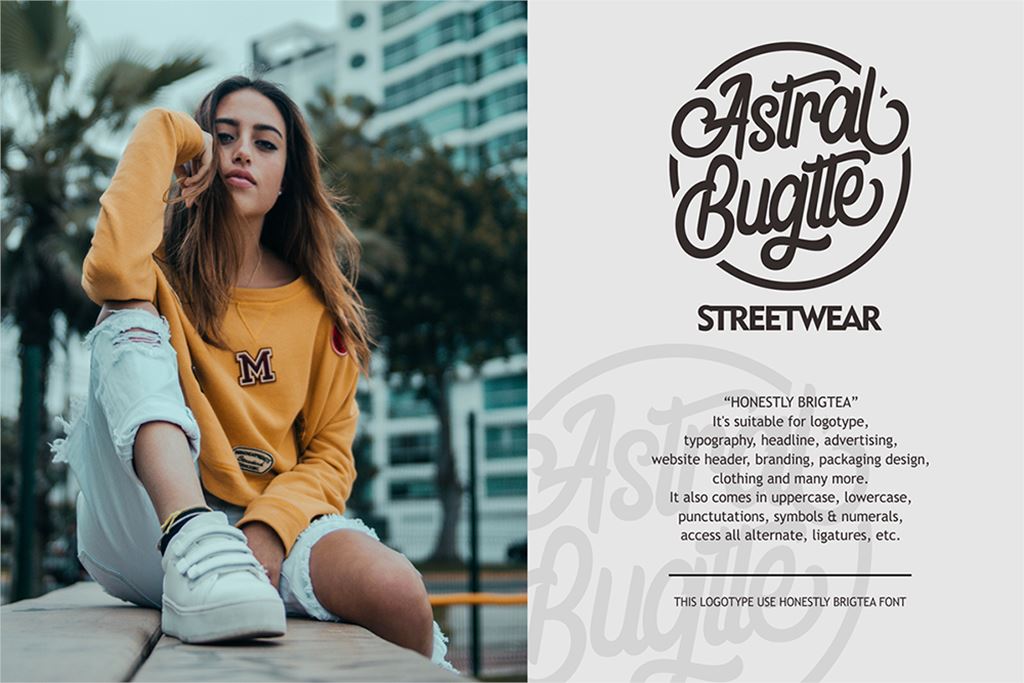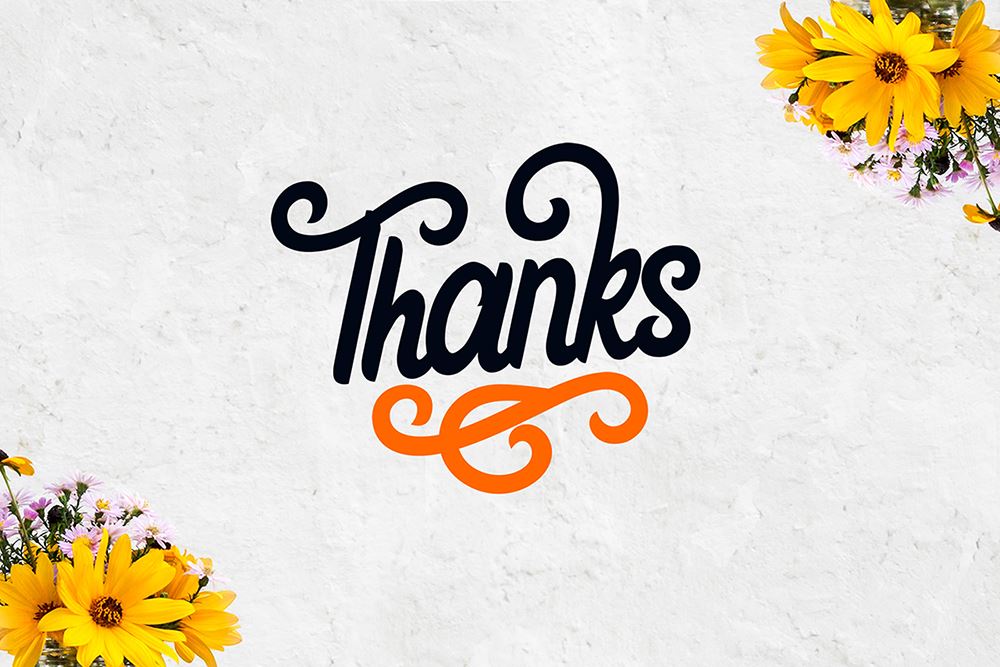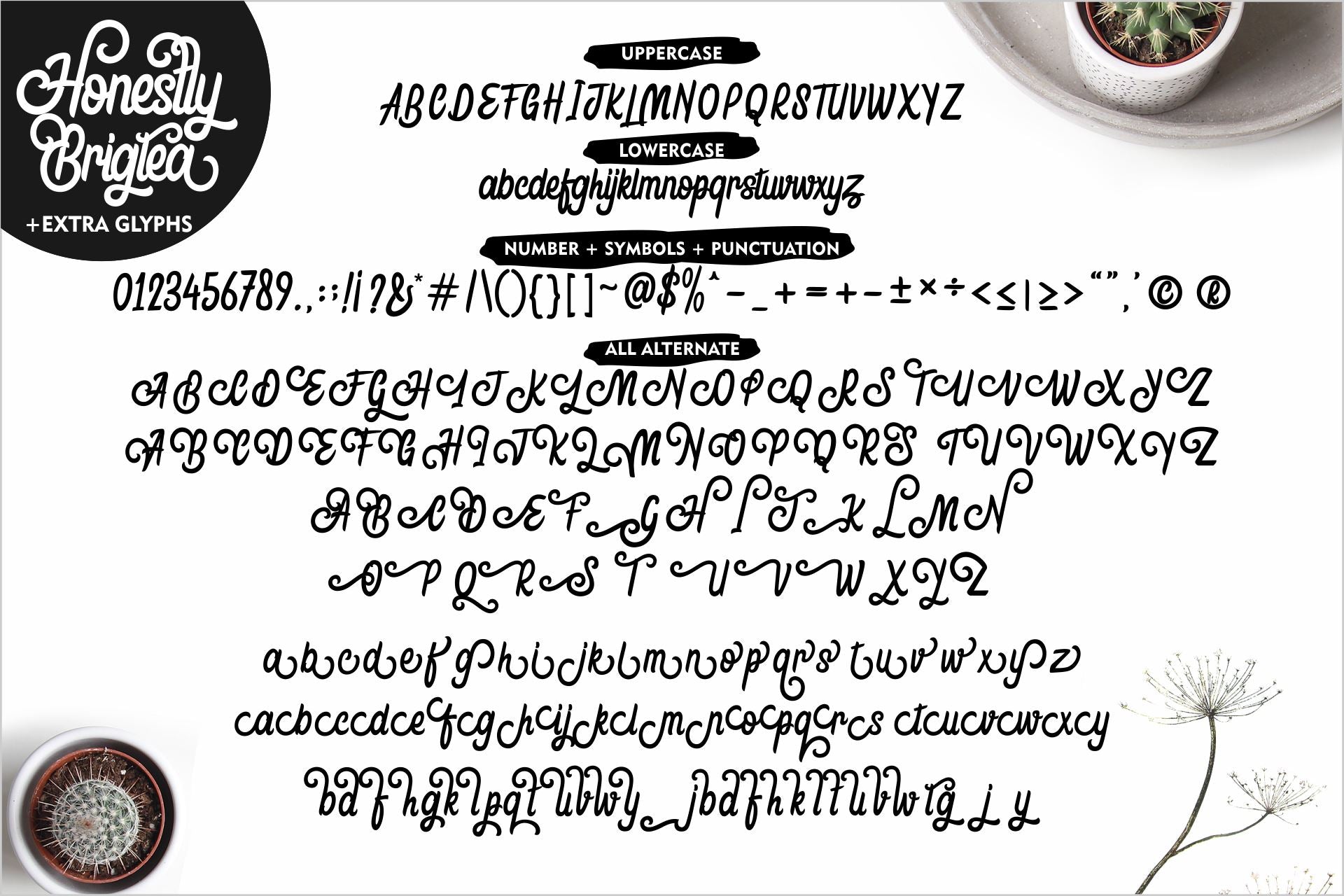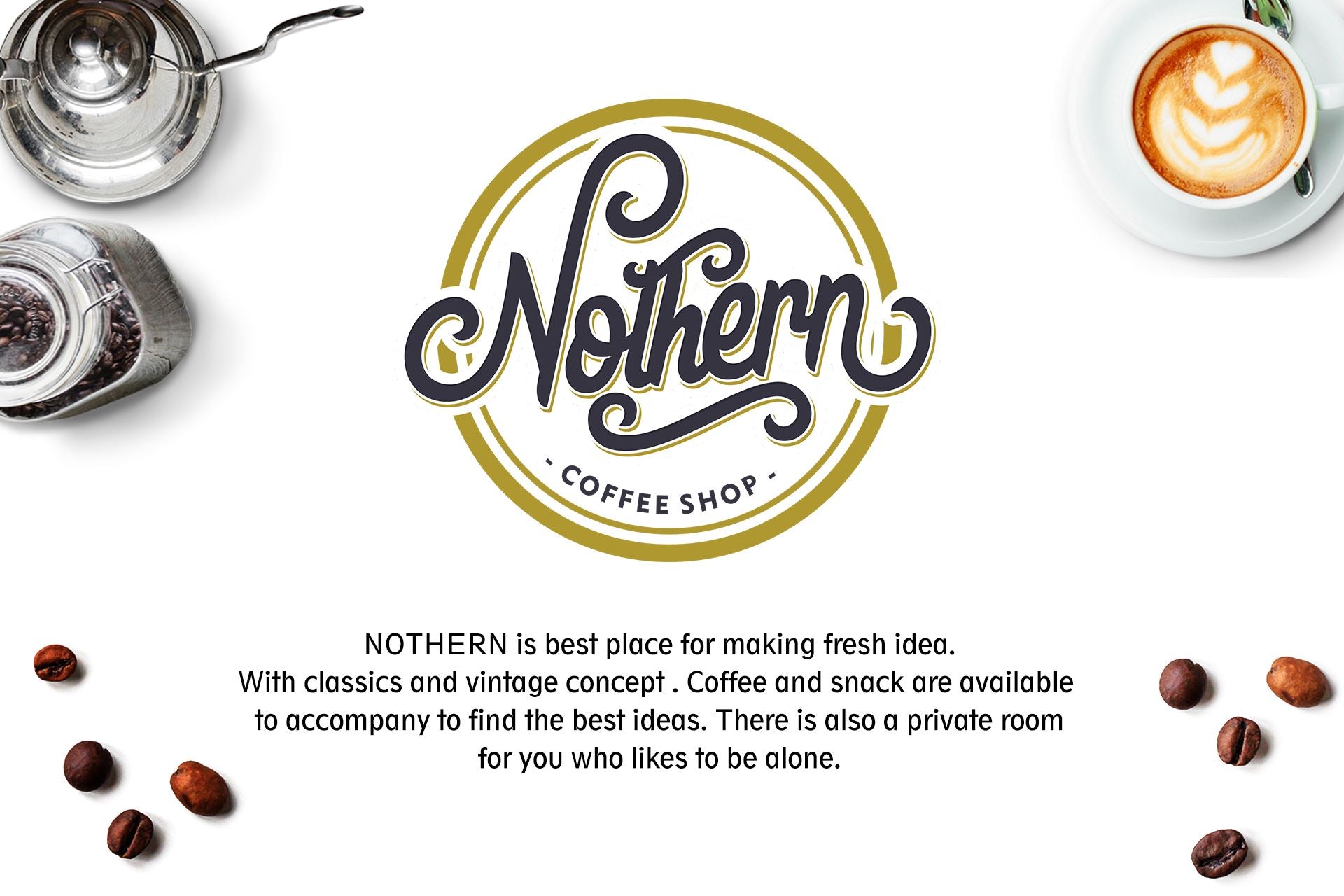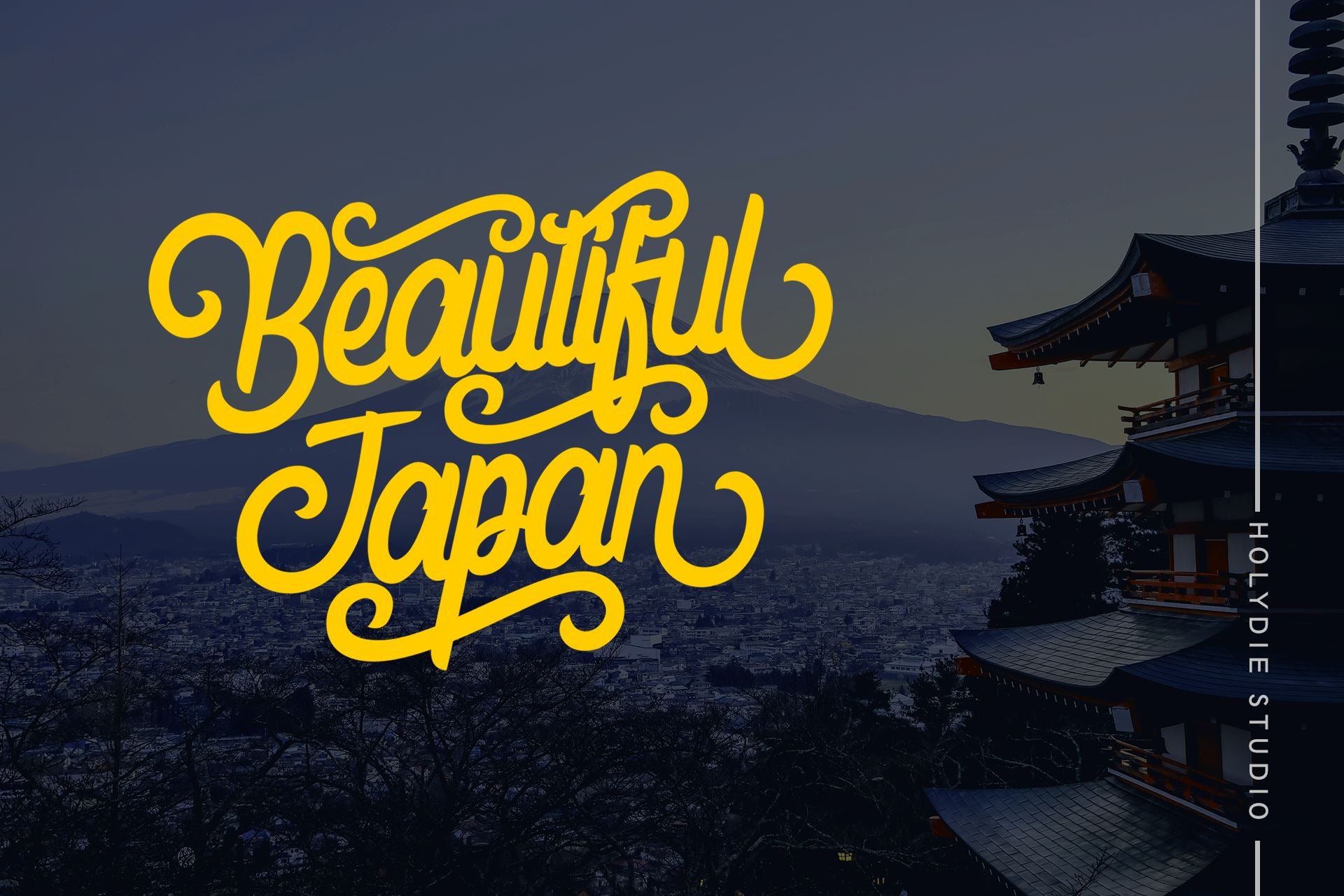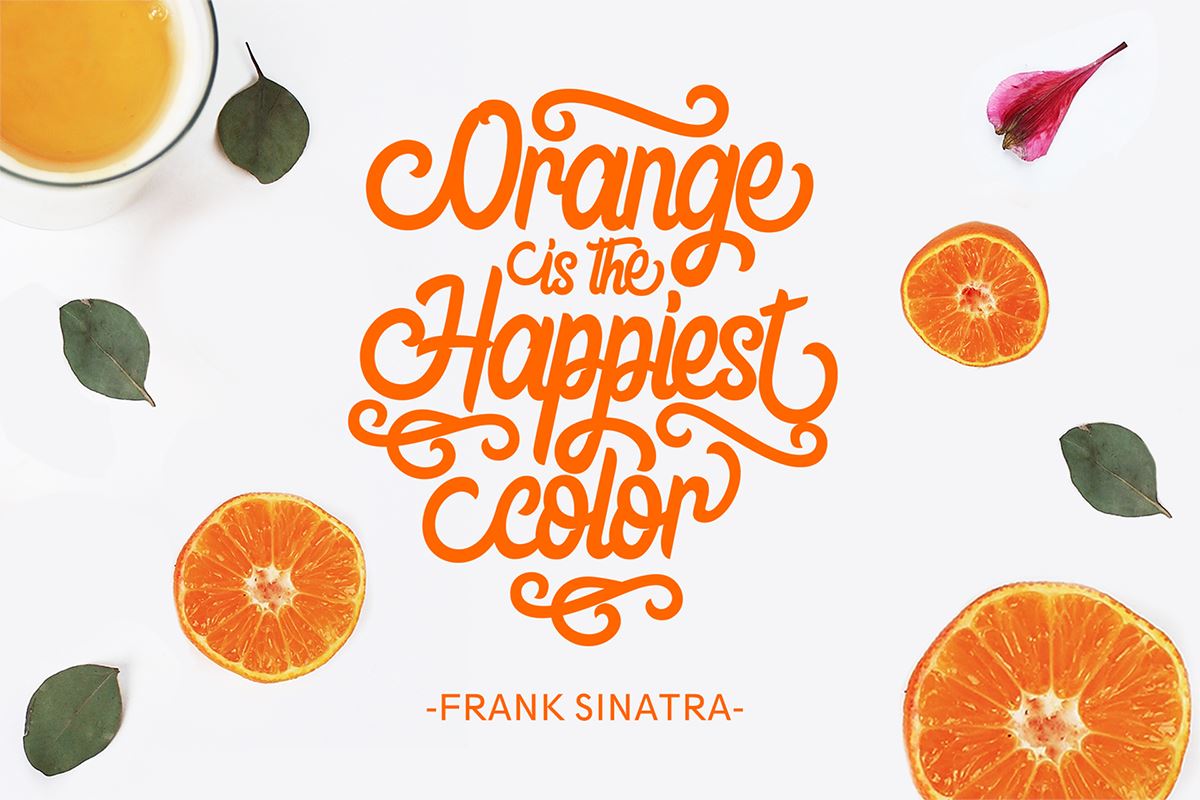
Honestly Brigtea
About Honestly Brigtea
Honestly Brigtea is a fun and playful handwritten font with a unique twist. Get inspired by its dynamic feel, and turn any design idea into a true stand out! Various Alternates Ligatures PUA Encoded Multilingual Support Thank You